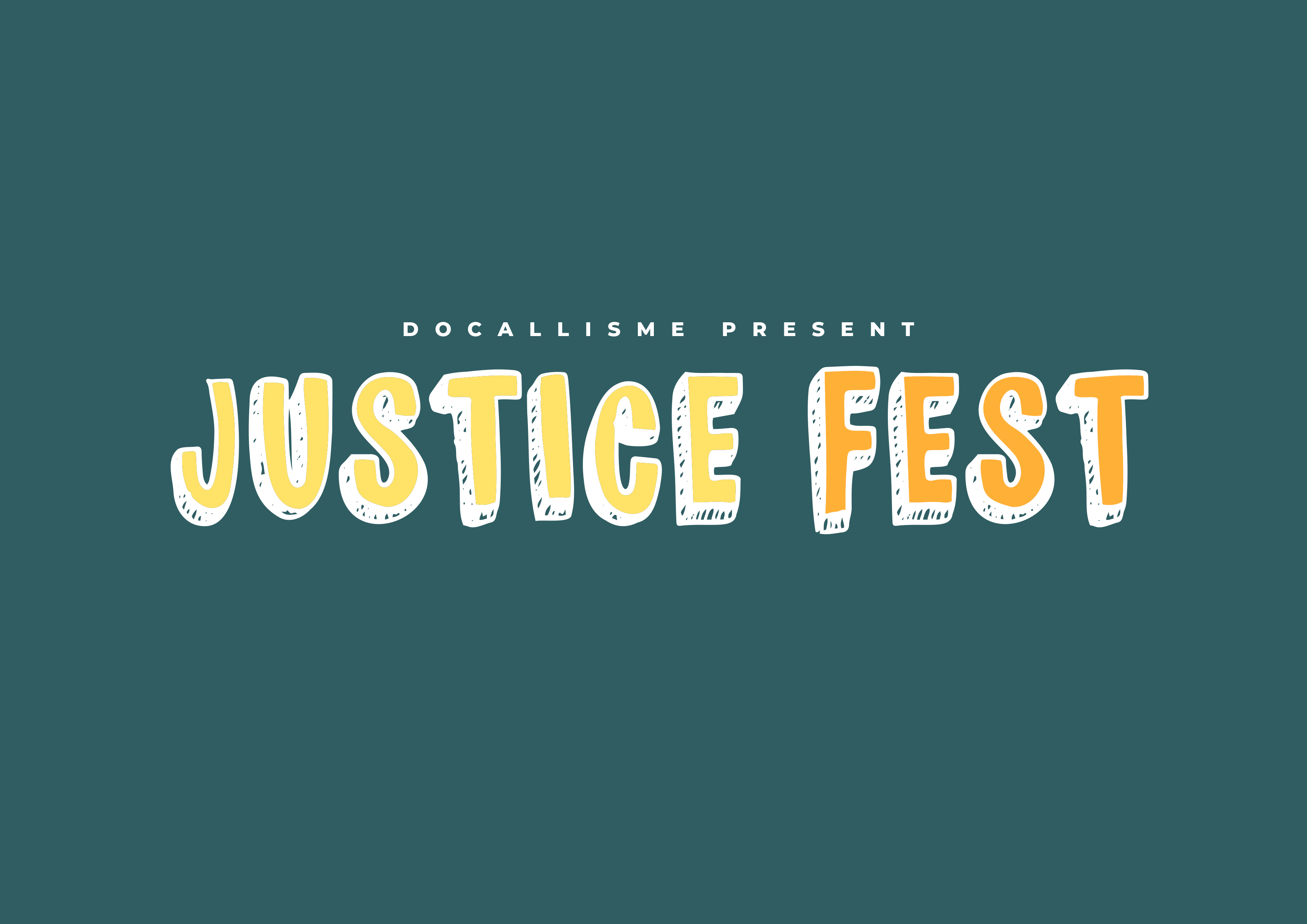
Justice Fest
Looking for a font that exudes urban cool and adds a touch of rebelliousness to your designs? Look no further! This unique, pencil-drawn display font is perfect for anyone seeking a bold, attention-grabbing typeface that's sure to make a statement.
With its rough-around-the-edges texture and hand-crafted feel, this font has the power to elevate any design from ordinary to extraordinary. Whether you're working on a streetwear-inspired campaign, a music festival poster, or simply want to add some edge to your brand identity, this font is sure to impress.
The versatility of this font is one of its greatest strengths - it's equally at home in headings, titles, and even body text. The result is a design that feels authentic, edgy, and unapologetically cool. Perfect for anyone looking to add some grit and personality to their work.
If you're searching for a font that will help you stand out from the crowd and make your designs truly unforgettable, this street-style display font is the perfect choice. With its unique blend of rough texture and refined style, it's sure to become your go-to font for creating eye-catching, attention-grabbing designs that demand to be noticed.